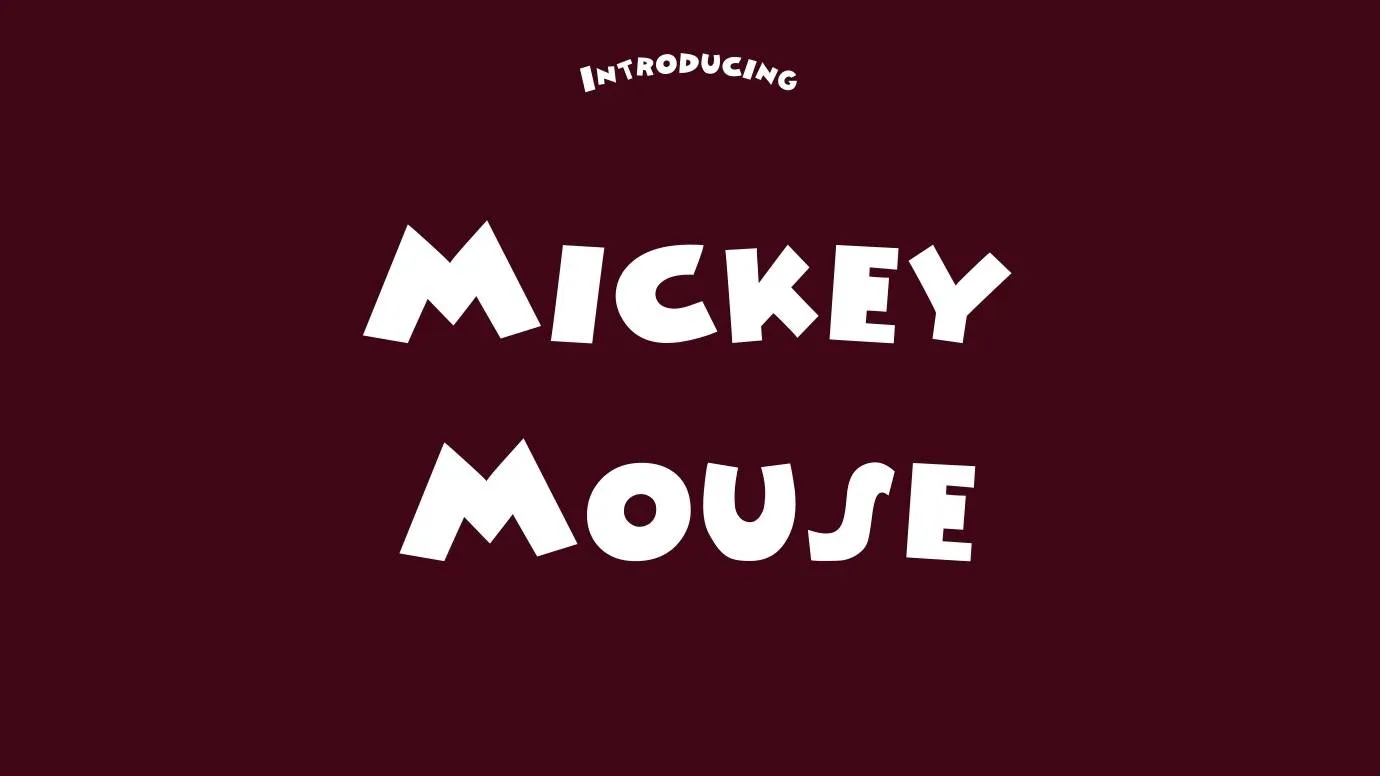
Mickey Mouse Font Family is a high-quality cartoonish font. This is a famous logo font designed by Mickey. This bold display-looking font lies in the classification of the fancy family of fonts. This stylish typeface was designed for the logo of a famous cartoon animation.
| Name | Mickey Mouse Font |
| Type | Fancy |
| Designer | Mickey |